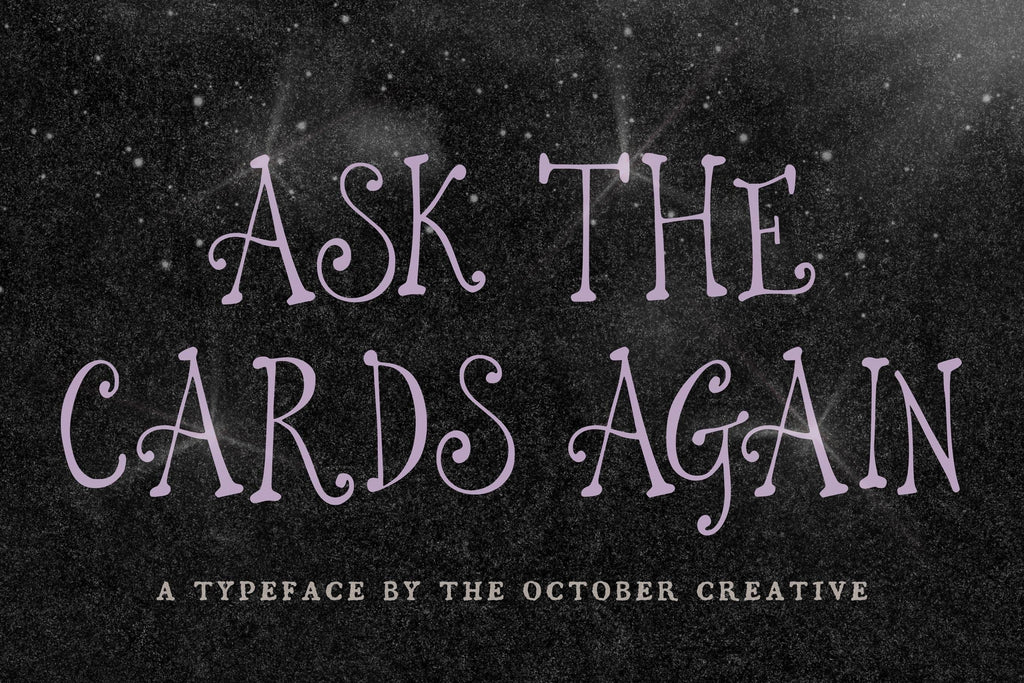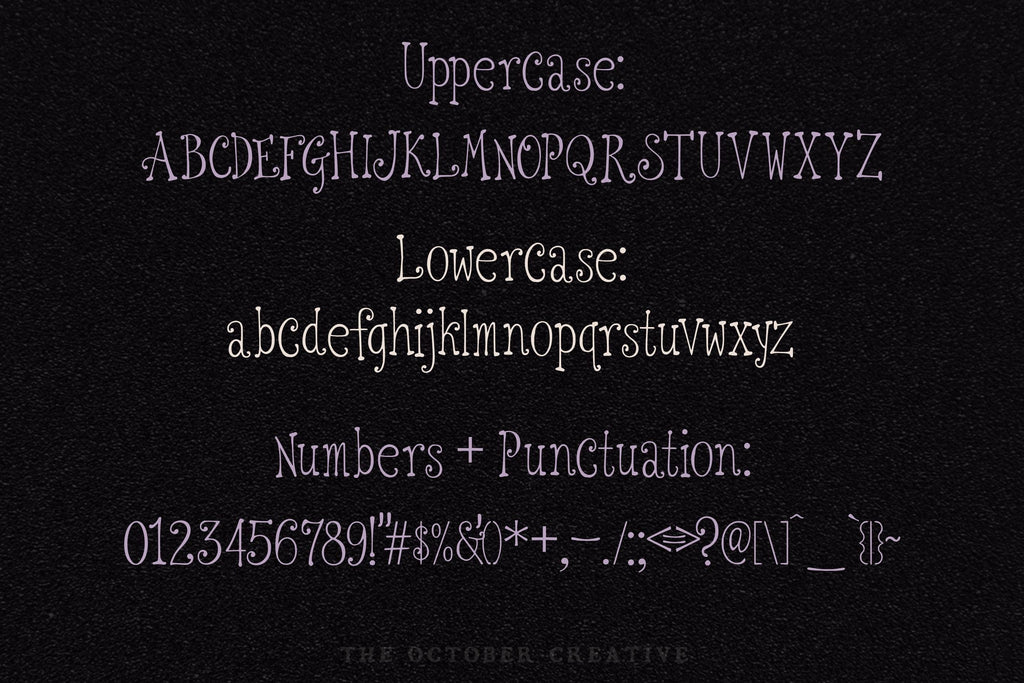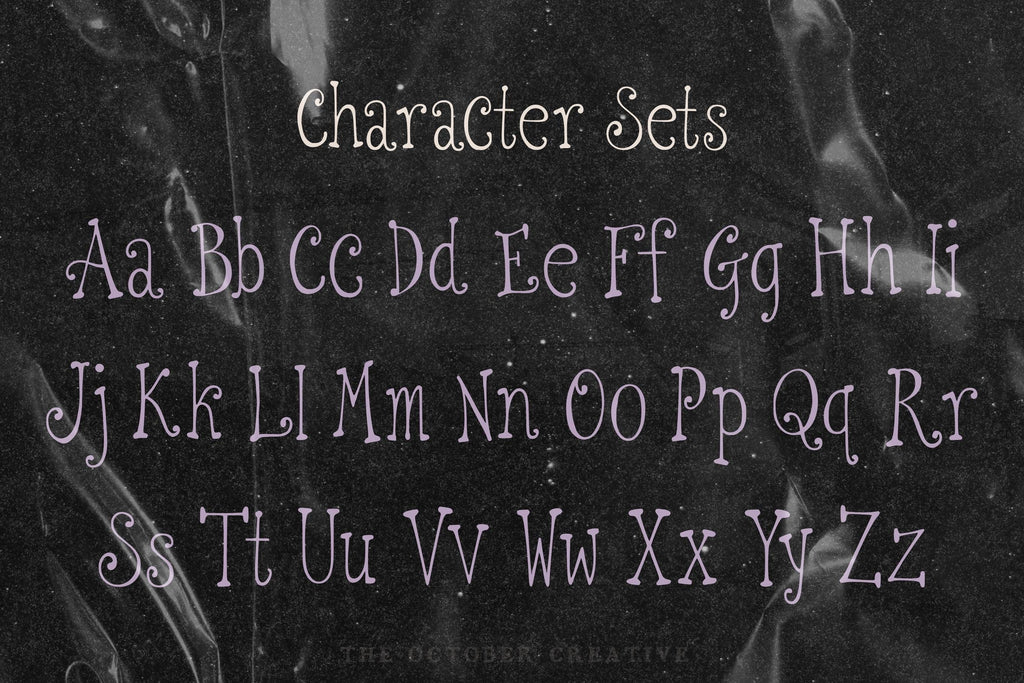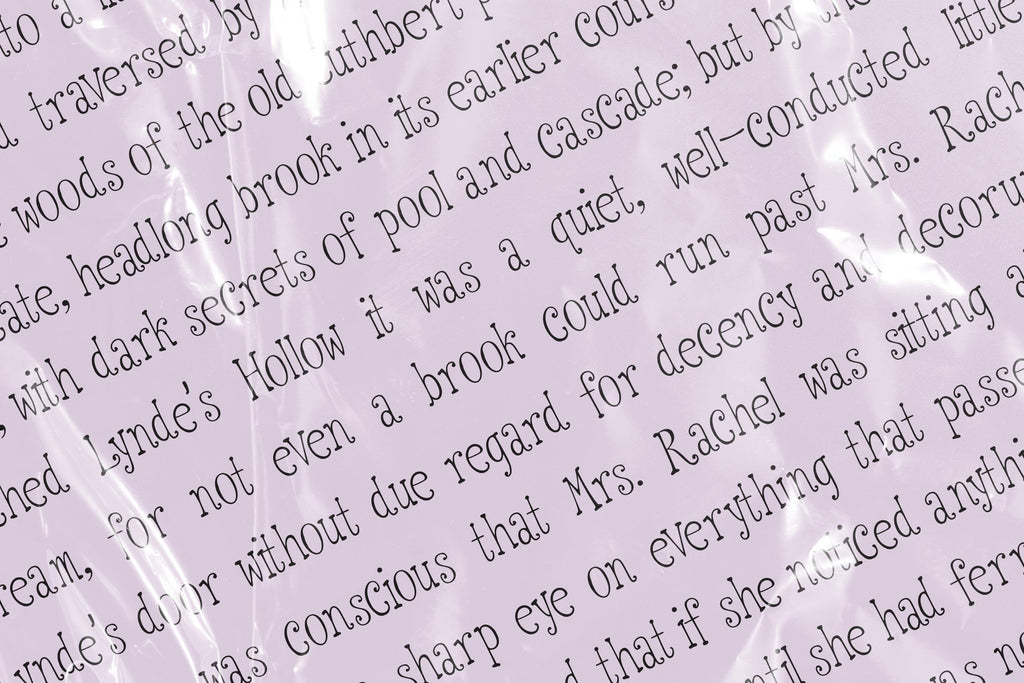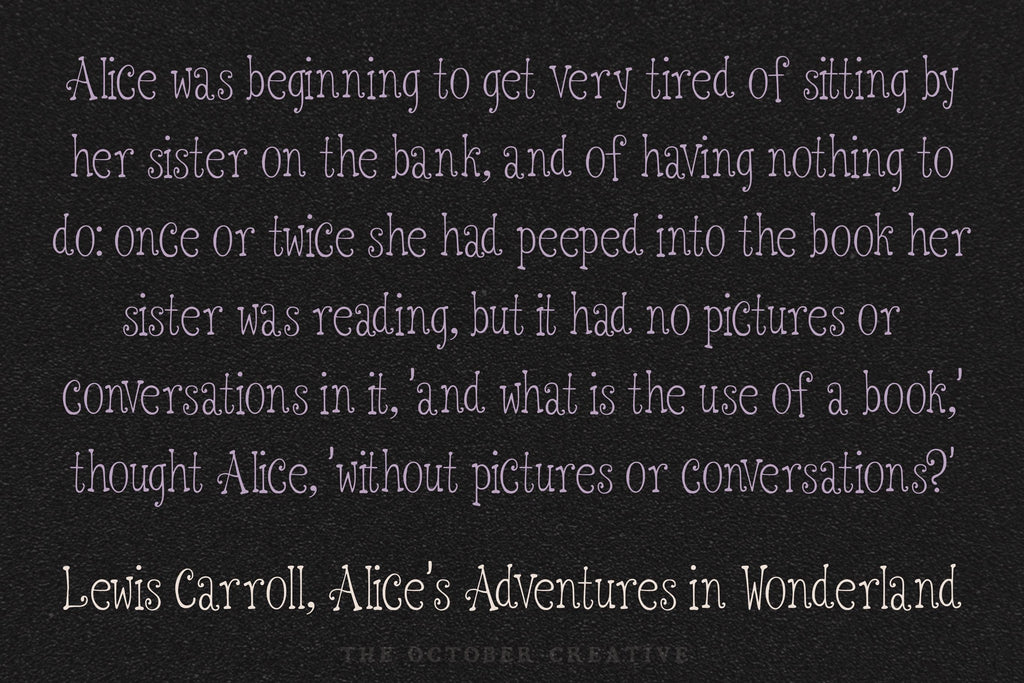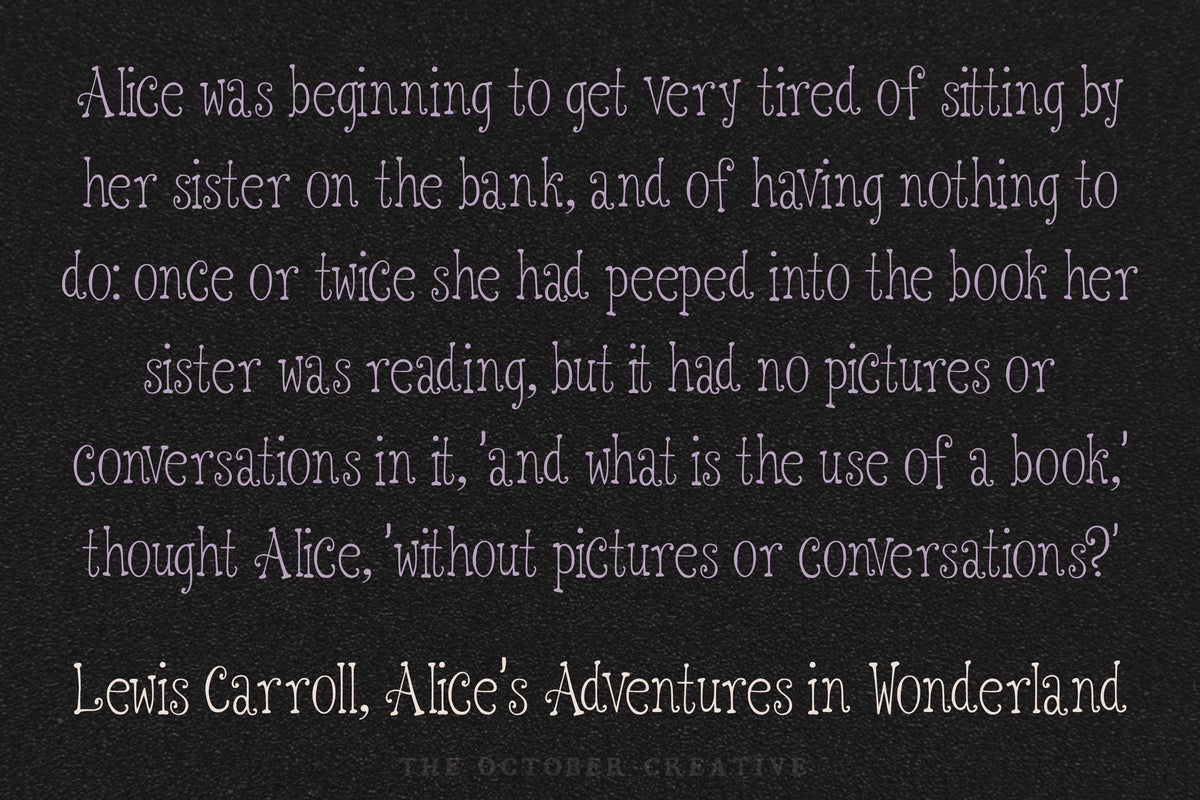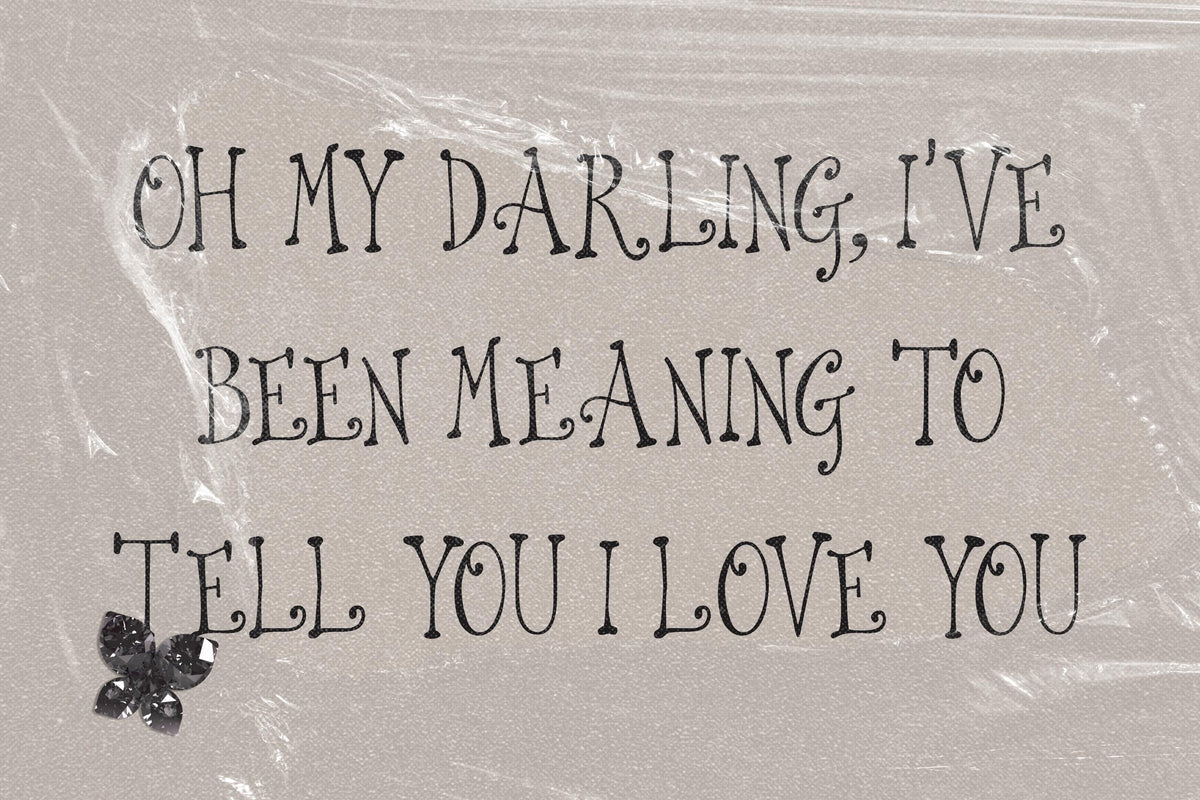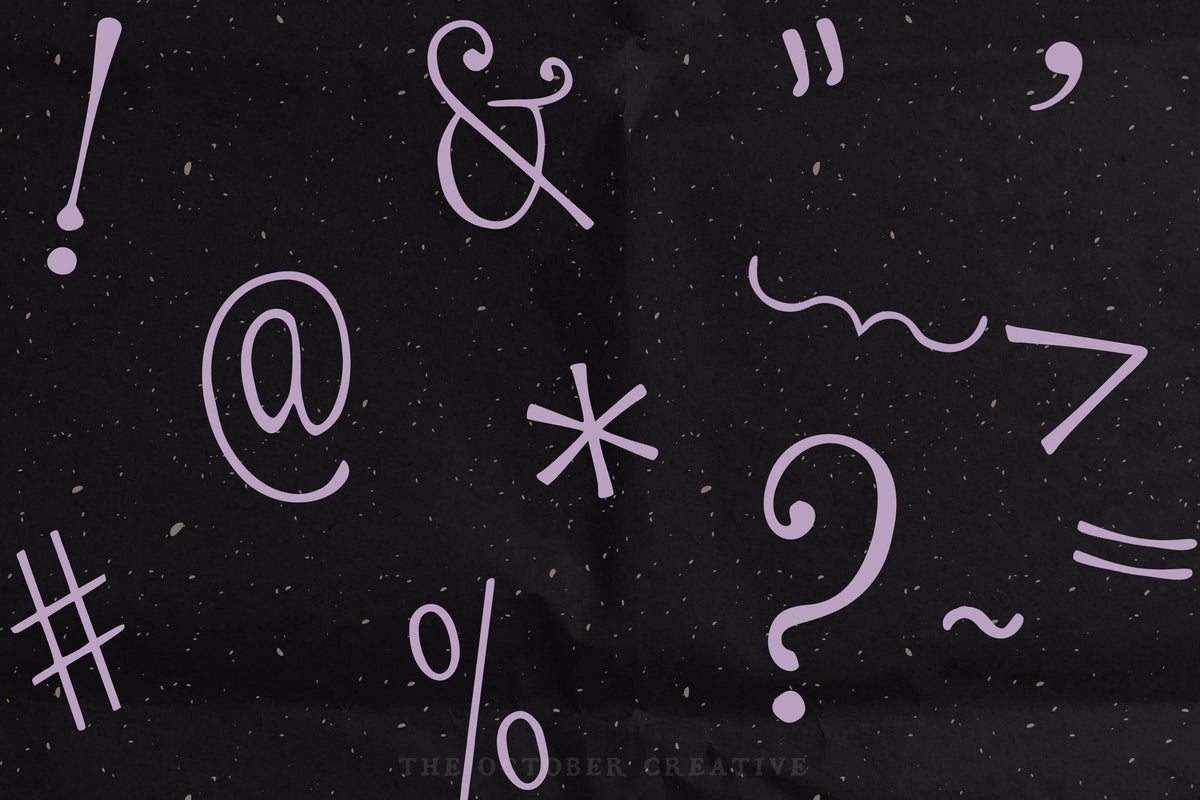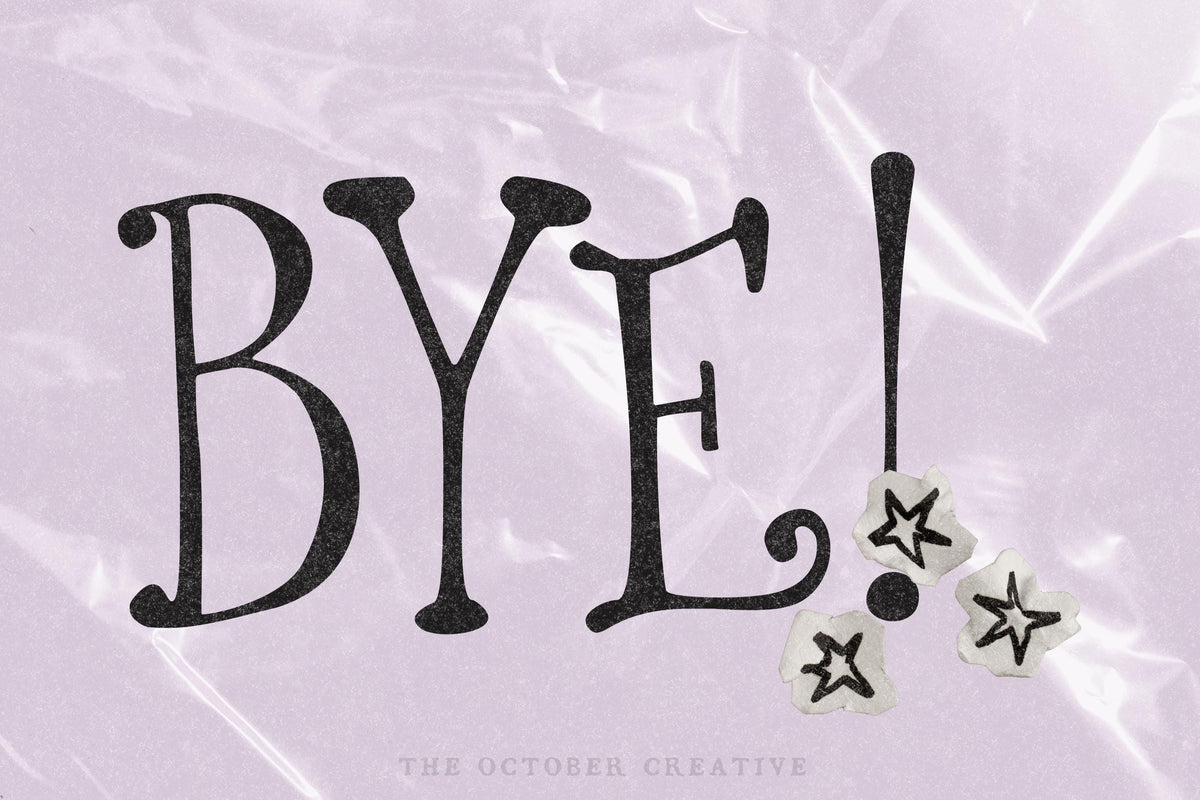
Ask the Cards Again Font
Ask the Cards Again is a fortune teller serif font with tall, curly capitals and a light, upright lowercase. It fits tarot and oracle card titles, astrology prints, witchy party invitations, and candle labels.
• One style: Ask the Cards Again Regular
• Uppercase A to Z, lowercase a to z, numbers 0 to 9, and every standard keyboard punctuation mark and symbol
• Curly quotes and apostrophes, dashes, an ellipsis, and a bullet
• Common accented letters for names, like José, Chloé, Zoë, Renée, and Françoise
• One Regular style, with no alternate characters or ligatures.